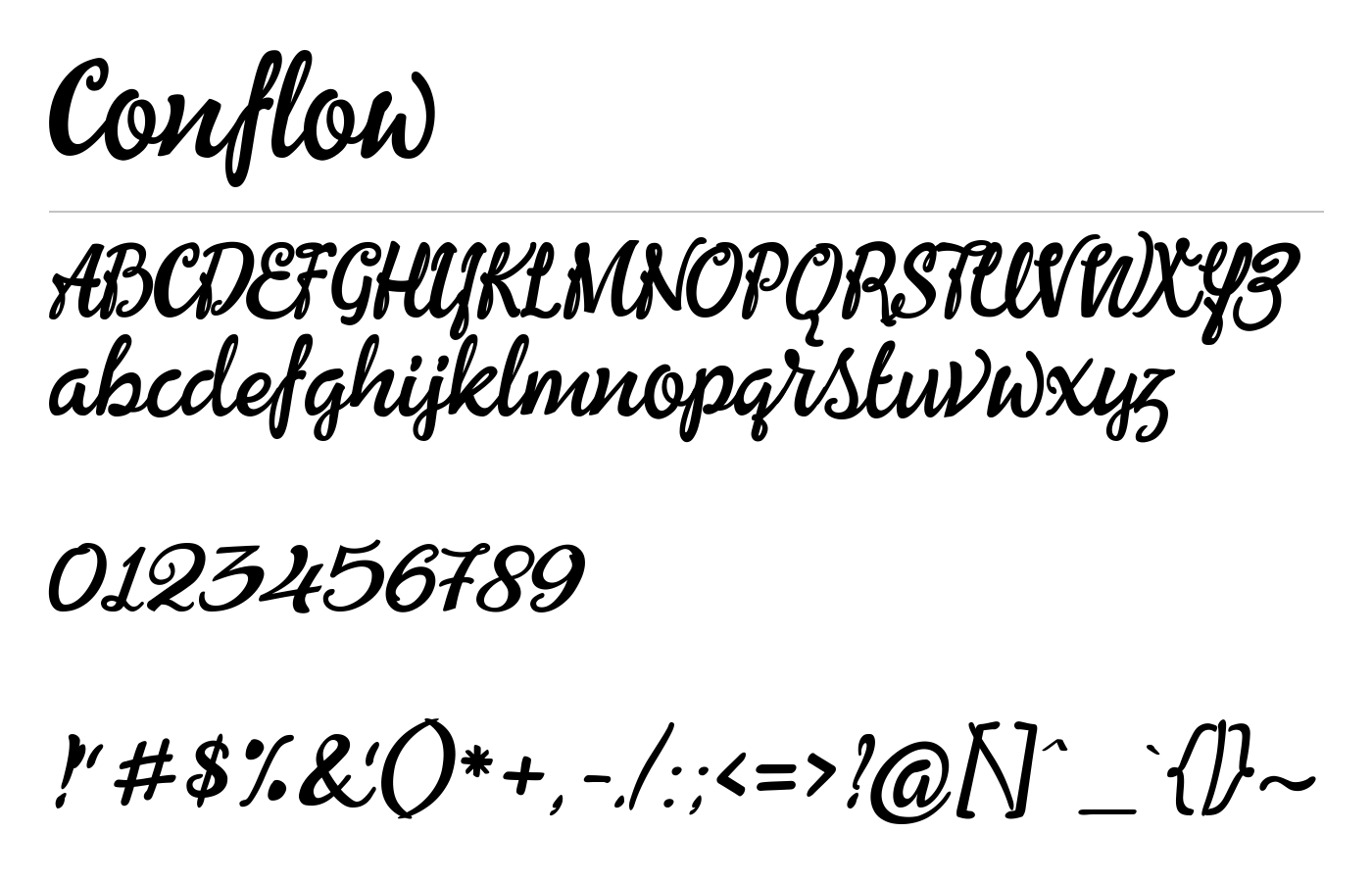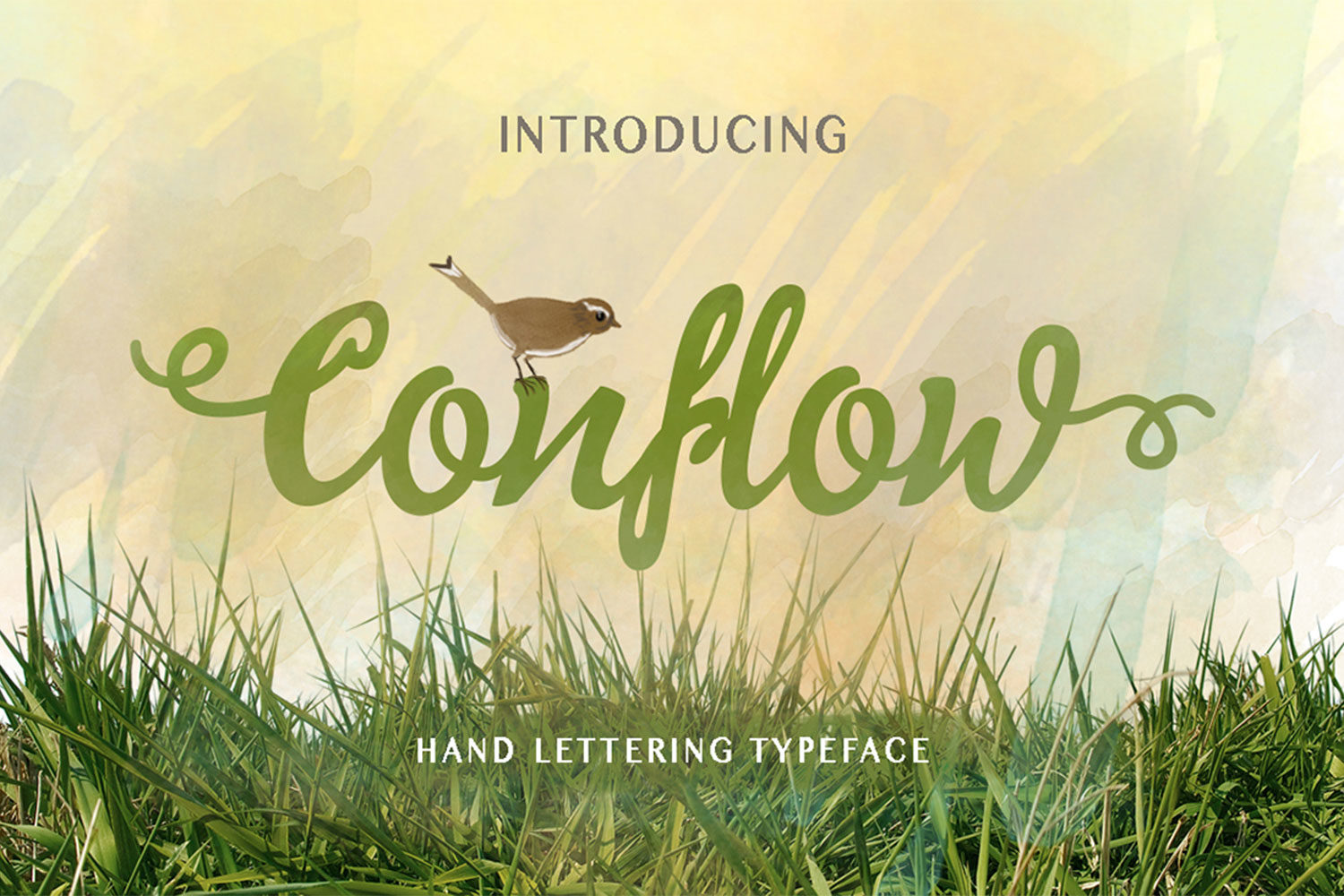
Conflow Typeface is a lively and elegant script font that features smooth, flowing strokes with medium-to-high contrast, creating a dynamic yet readable style. Its connected cursive letters and refined curves give it a warm, approachable personality, making it ideal for branding, invitations, and display use where a friendly yet sophisticated tone is desired. This font works best in creative projects that need a touch of modern calligraphy with clear legibility.
| Designer | Tauris Mustafa |